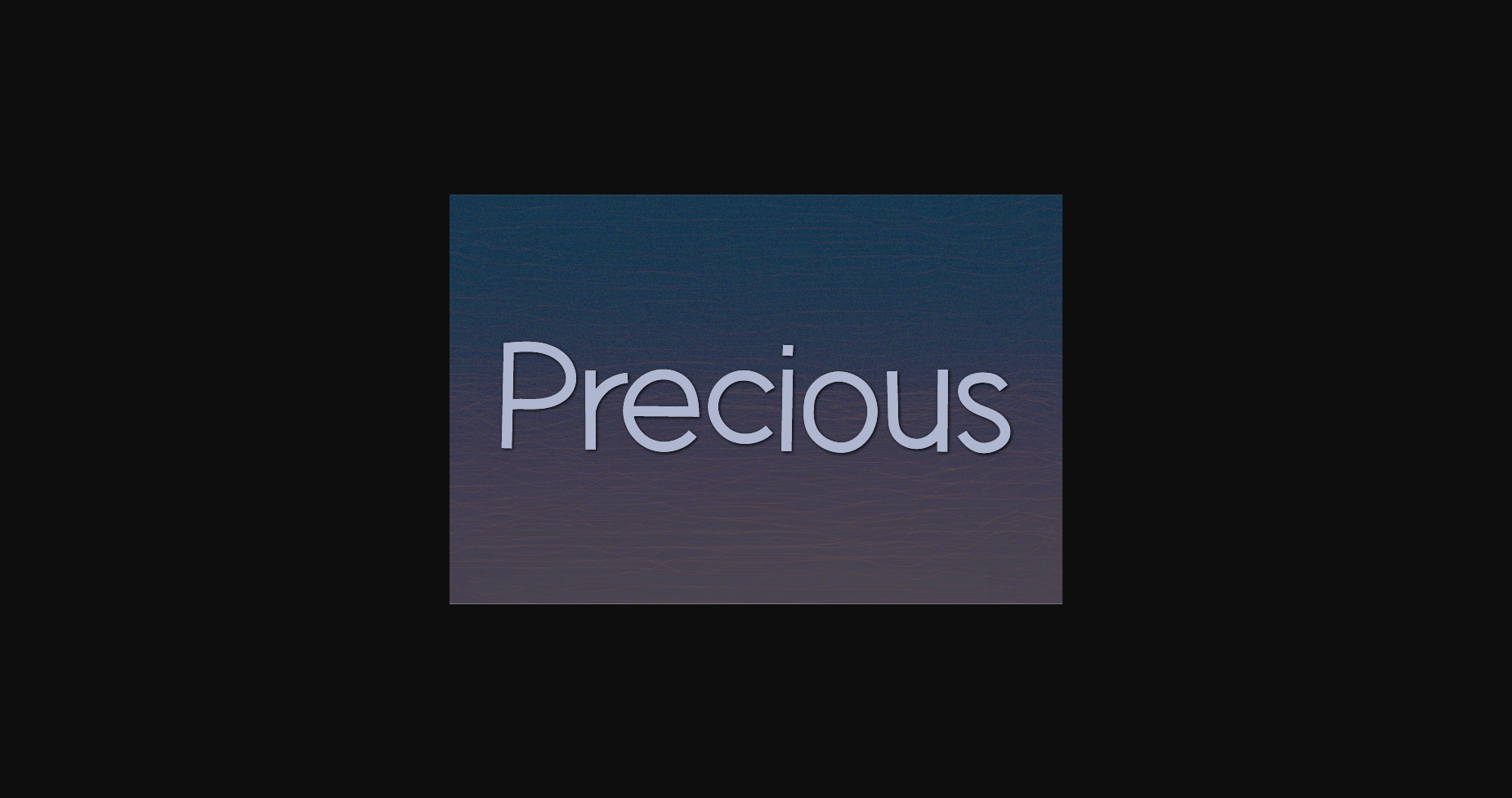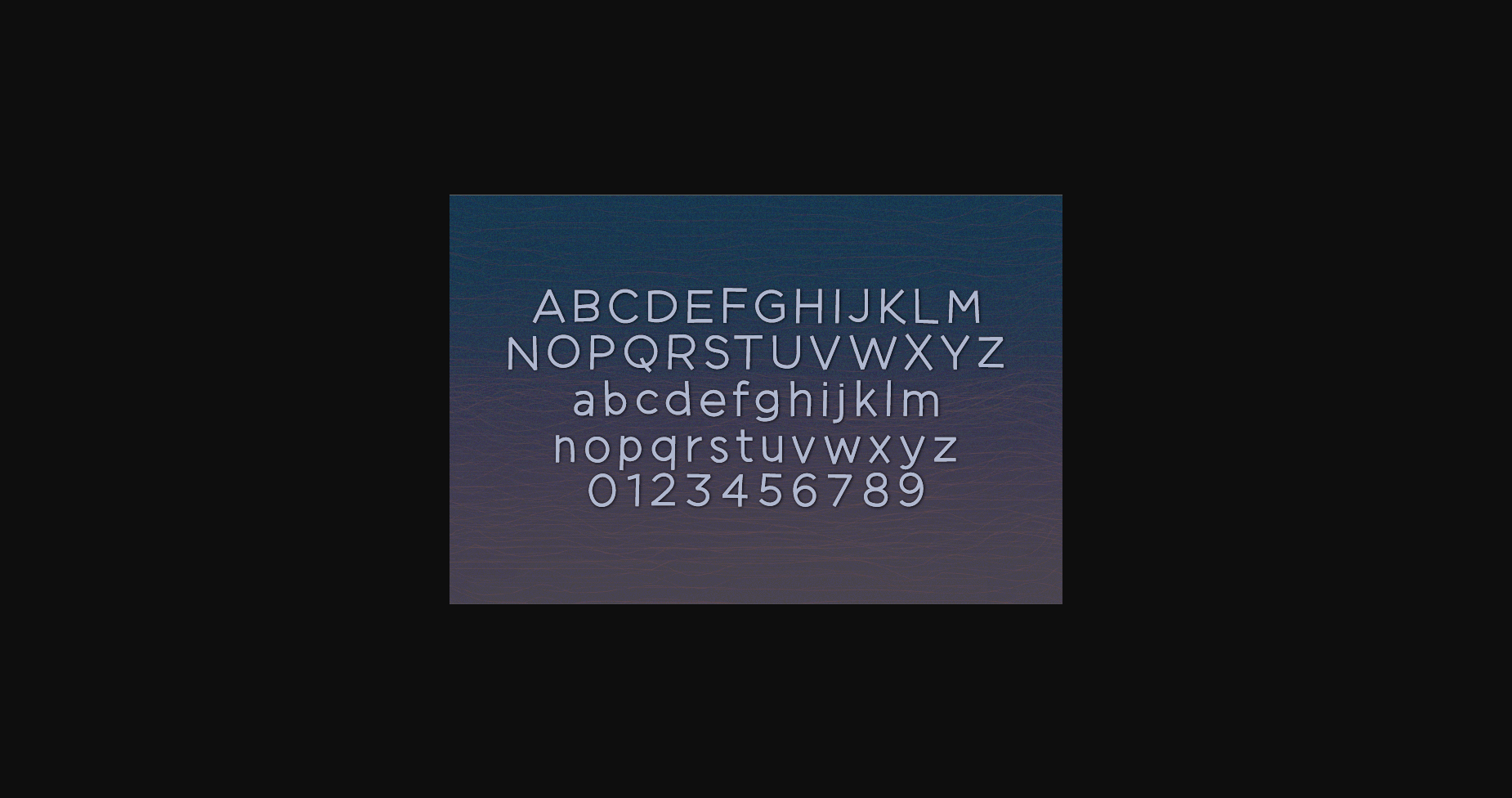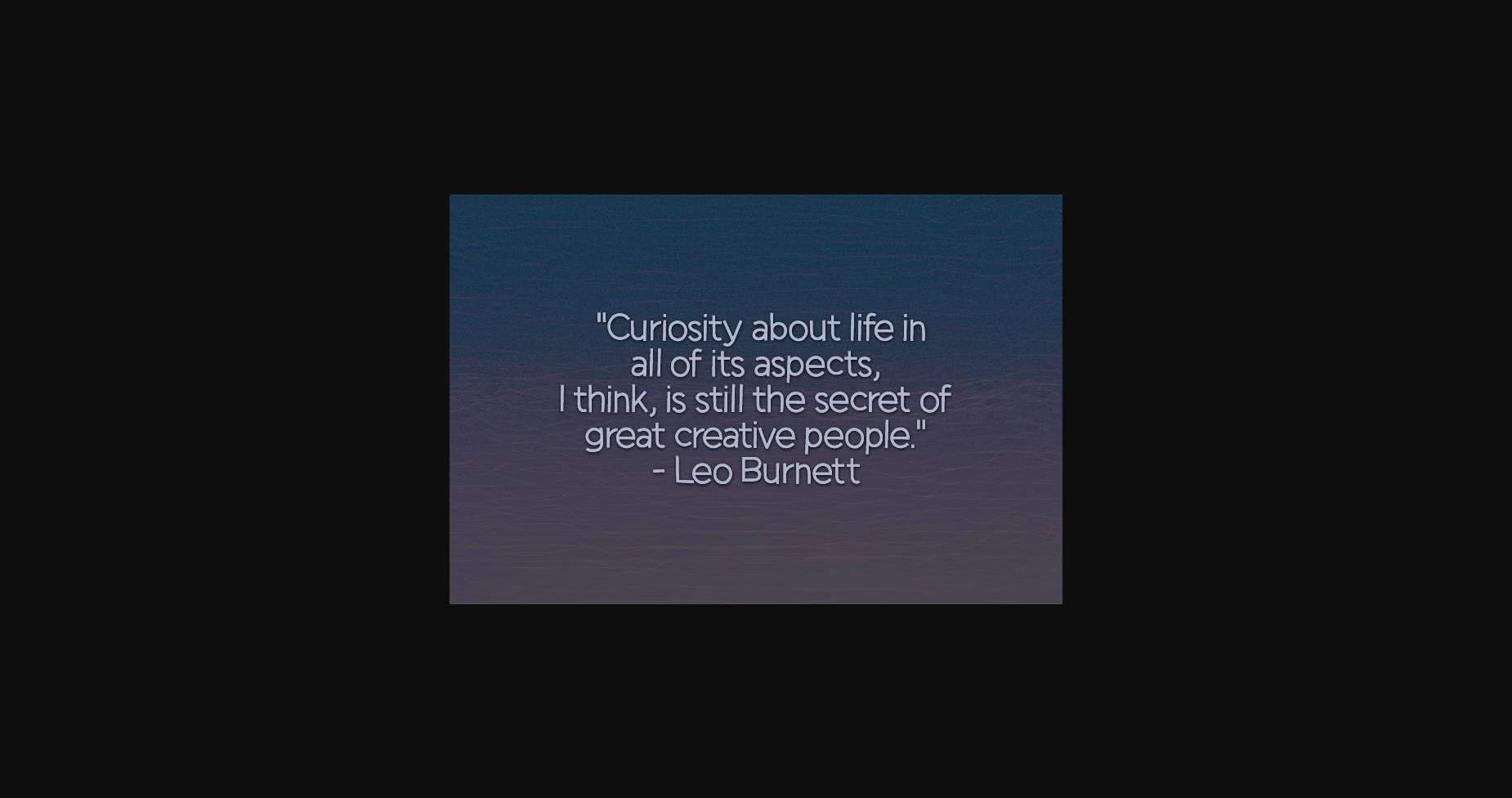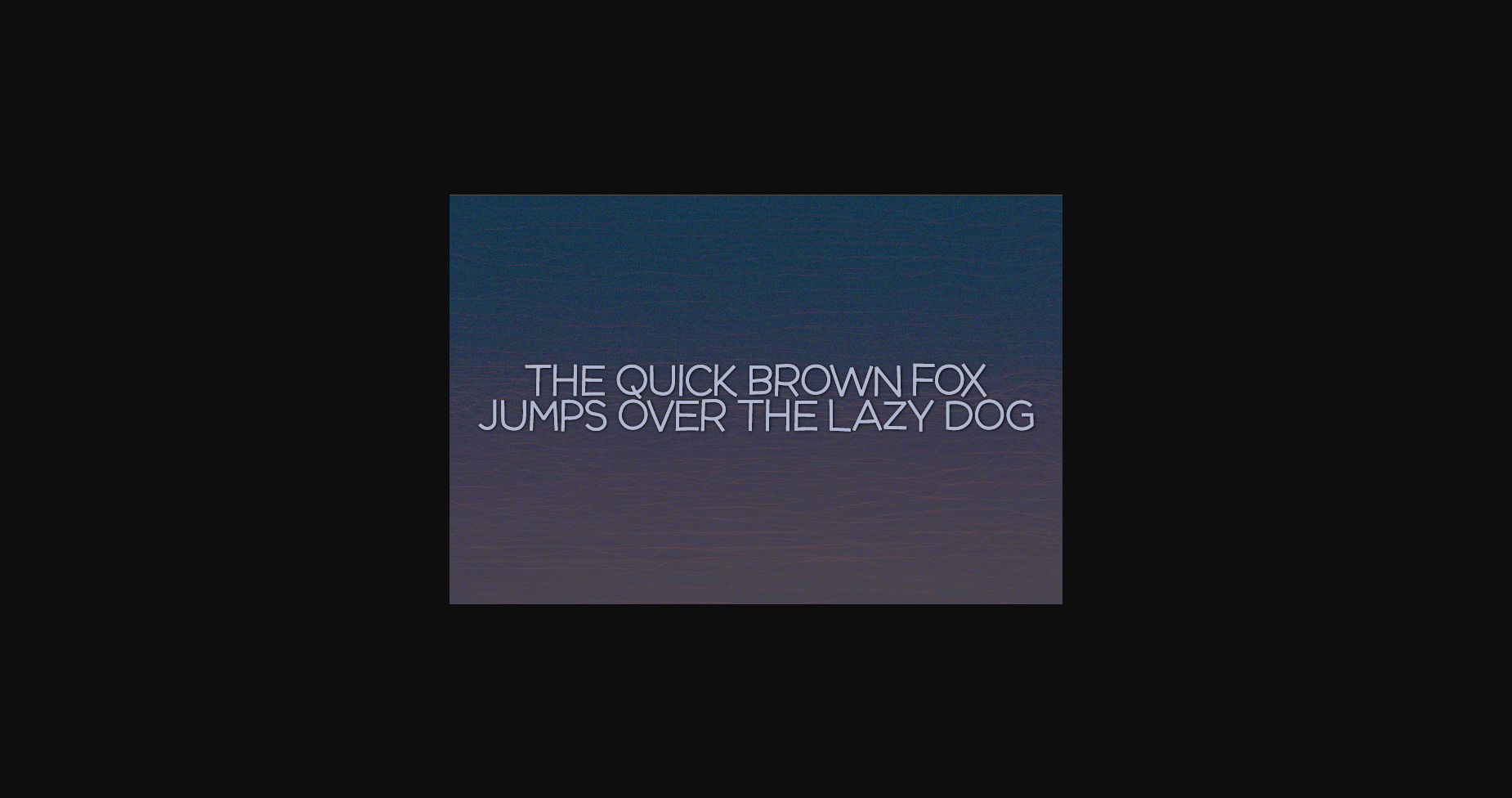
HomeSans Serif FontsPrecious Font Sans Serif Fonts Precious Font FacebookXPinterestWhatsApp 1 of 6 ... Precious Font Poster 2... Precious Font Poster 3... Precious Font Poster 4... Precious Font Poster 5... Precious Font Poster 6... About Precious Font Precious is a beautiful sans serif font that will make a wonderful asset to your collection. Add it to your logos, quotes, T-shirts, greeting cards, business cards, and many more, and make them outstanding! DOWNLOAD NOW People also explored Holiday Garland Font Twistko Font Snow Mountain Font Snowman Version Two Font Rockyroad Font Holidays Font Manohara Font Bookworm Font West Riattol Font 286 0 TagsPrecious Font Previous articleFaithful FontNext articleNatured Font LEAVE A REPLY Cancel reply Comment: Please enter your comment! Name:* Please enter your name here Email:* You have entered an incorrect email address! Please enter your email address here Website: Save my name, email, and website in this browser for the next time I comment. Personal Use Free DoooLA Personal Use Free Read more about this font Cokobi Personal Use Free Read more about this font Whitelight Personal Use Free Read more about this font Street Cred Personal Use Free Read more about this font BLOG Using Fonts in Digital Marketing: Tips to Strengthen Your Brand Identity In the realm of digital marketing, every visual element plays a crucial role in shaping a brand's identity, and fonts are no exception. The... Fonts That Capture the Spirit of New York City How to Cut Any Font on Cricut: Convert a Font to SVG (Free) Exploring Font Trends